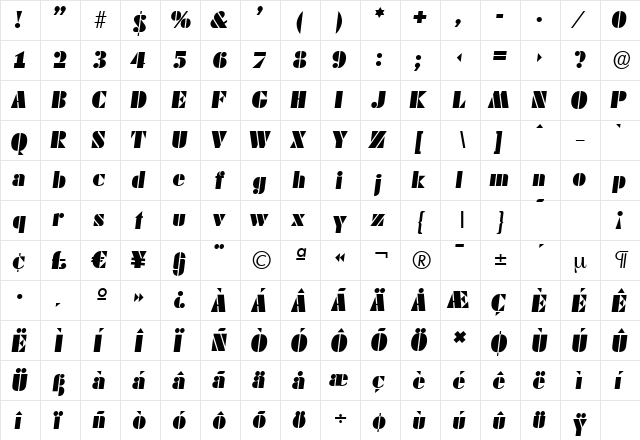
DekoBlackSerial Italic
Design Context for DekoBlackSerial Typeface
DekoBlackSerial is a composed and adaptable typeface that performs quietly and consistently across a wide range of design contexts. The slanted form adds forward momentum and visual energy.
Pro Tip: Use DekoBlackSerial for emphasis, pull quotes, and subheadings where its slanted energy can add rhythm to the layout.